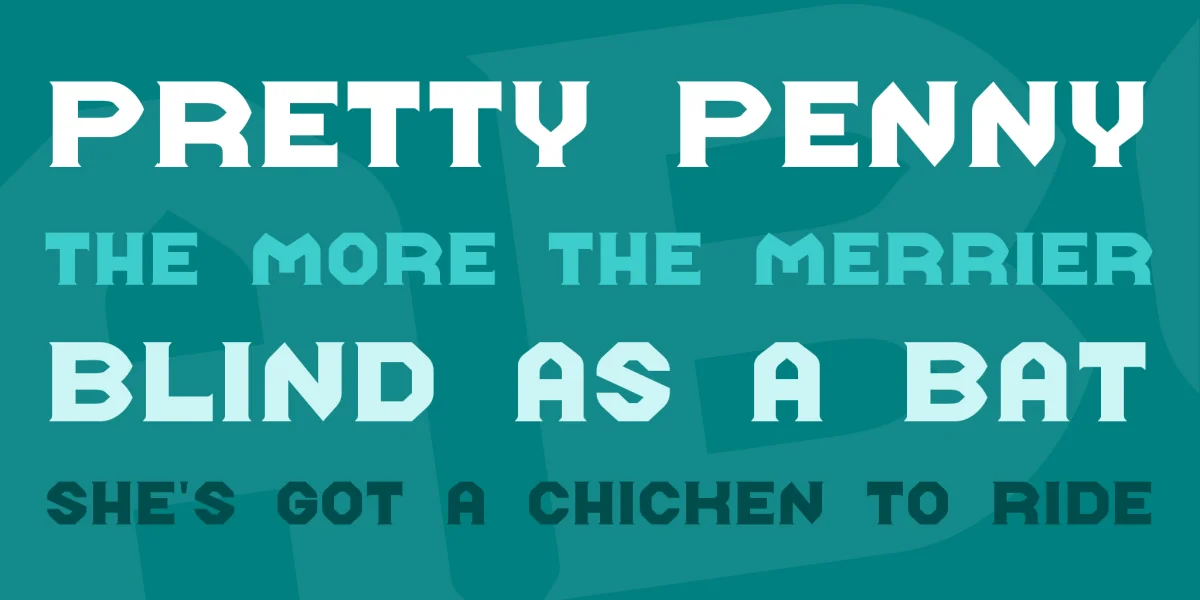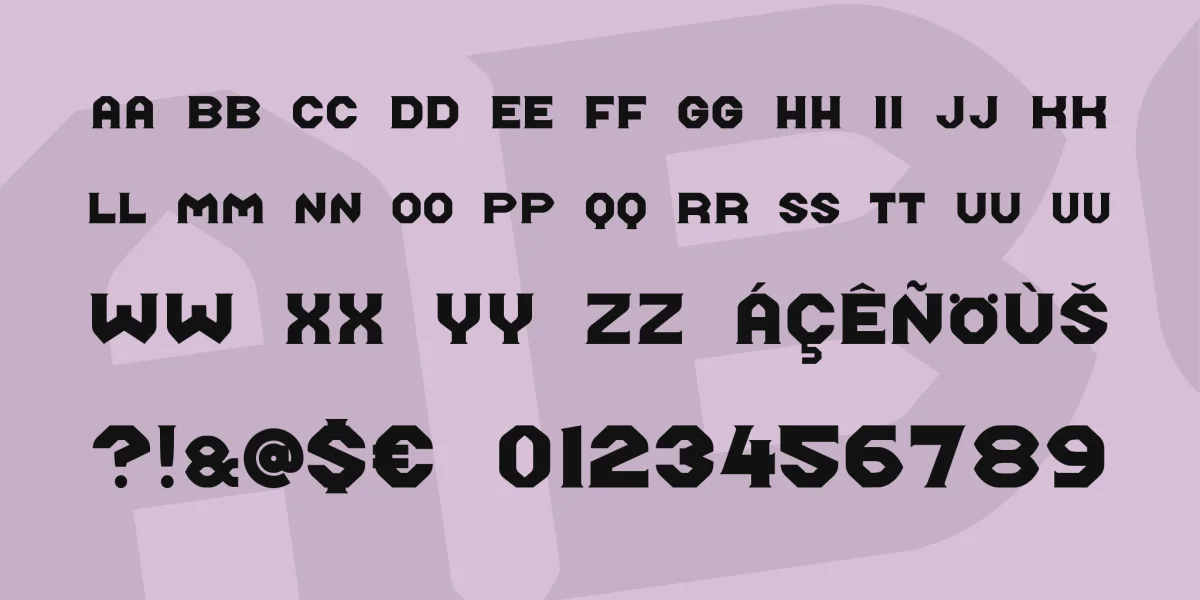
1916, the Central European sleeping and dining car corporation, founded shortly Mitropa. The Berlin graphic artist Karl Schöpig (in lgeicher way for Pelikan active) designed for a logo and the seven letters of the company name. Meanwhile, this historical name for sleeping and dining car is gone off the rails. So I added the rest of the seven letters and the alphabet in order not to get into legal trouble brand, the company name written content Saxon pronounced MIDROBA :-)